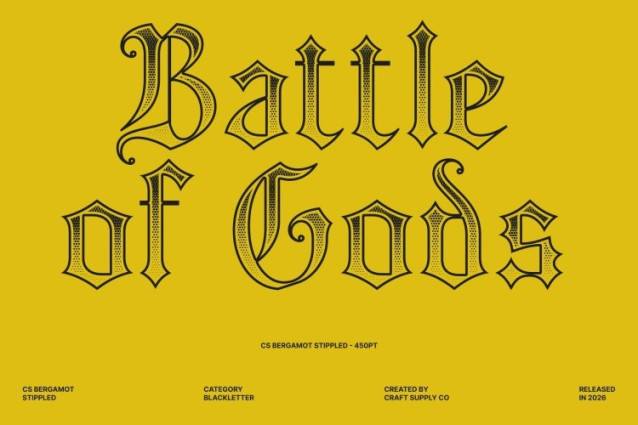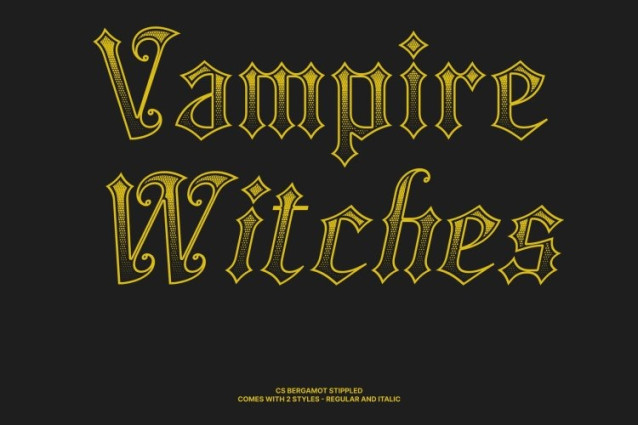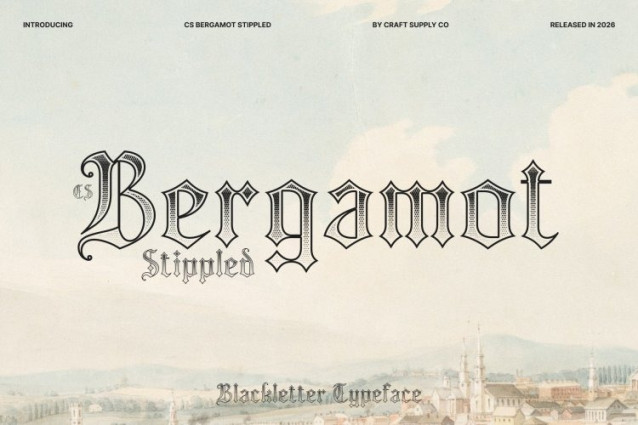
CS Bergamot Stippled Font
CS Bergamot Stippled Font – This is a striking Blackletter display font inspired by the intricate beauty of medieval European manuscripts, now enriched with a dense stippled texture. The dotwork detailing adds depth, dimension, and a subtle engraved quality to its sharp angles and bold vertical strokes amplifying its dramatic and historical presence.
Classic Gothic Aesthetic with Textured Power
Combining thick, authoritative lines with elaborate ornamentation, delivers a strong visual impact. The stippled surface enhances its decorative character, creating a tactile, vintage feel that reinforces its gothic elegance. It’s ideal for projects requiring a formal, classic, or intense stylistic statement.
Intricate Ornamentation with Visual Depth
The detailed blackletter forms are elevated by the textured finish, giving each character added richness and complexity. This layered visual effect makes the font especially effective for communicating heritage, tradition, and bold artistic identity across both print and digital formats.
Perfect for Bold Modern and Vintage Applications
From metal concert posters and traditional beer branding to editorial layouts and heritage-inspired packaging, offers a compelling blend of old-world craftsmanship and contemporary edge. Its bold decorative presence ensures every design feels powerful, expressive, and historically resonant.